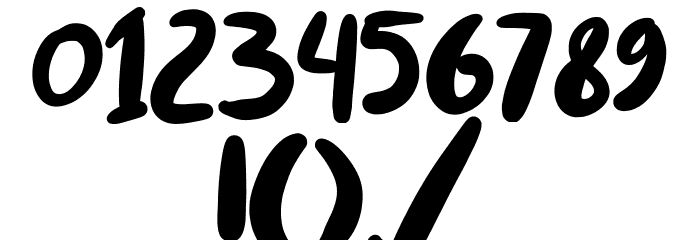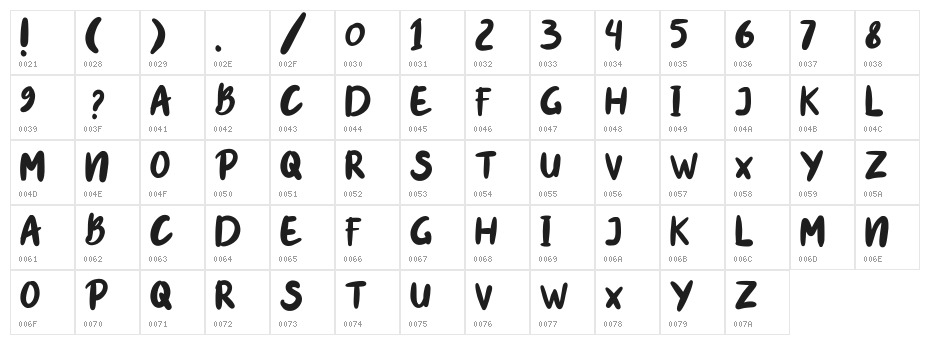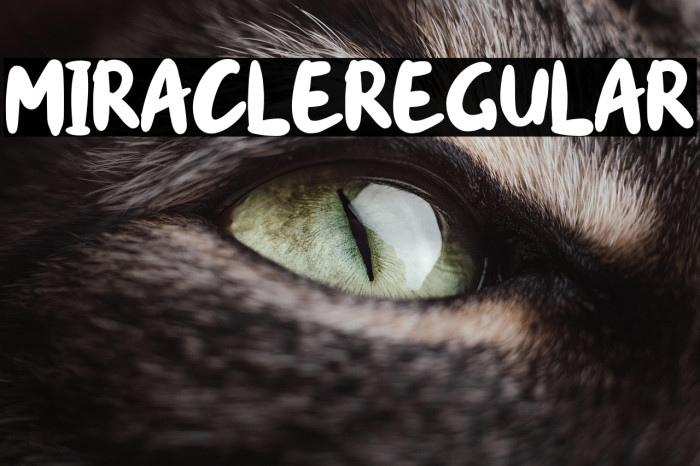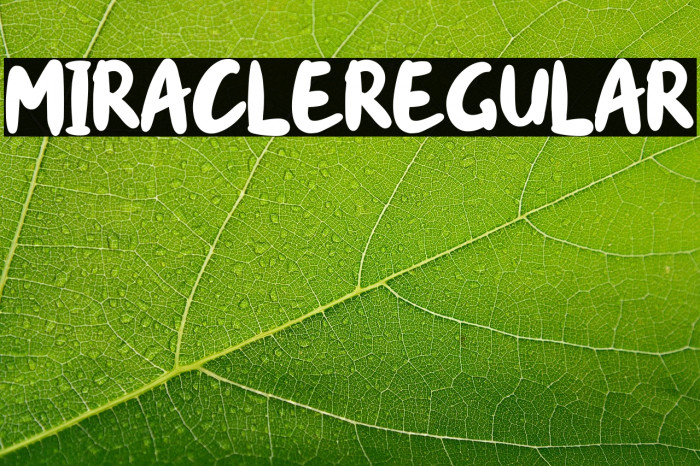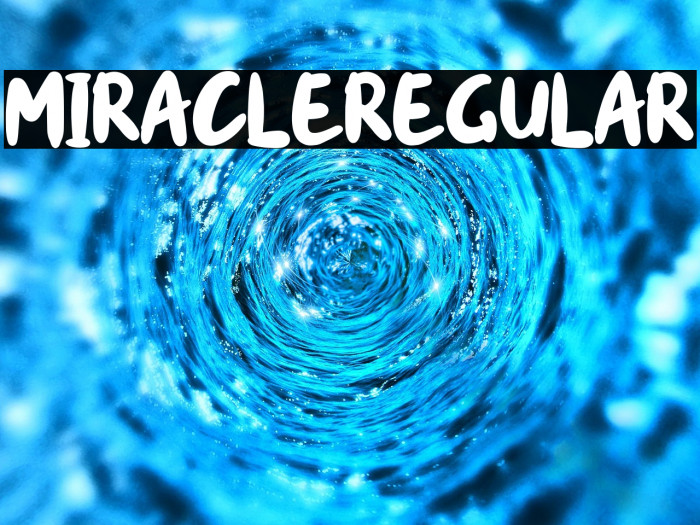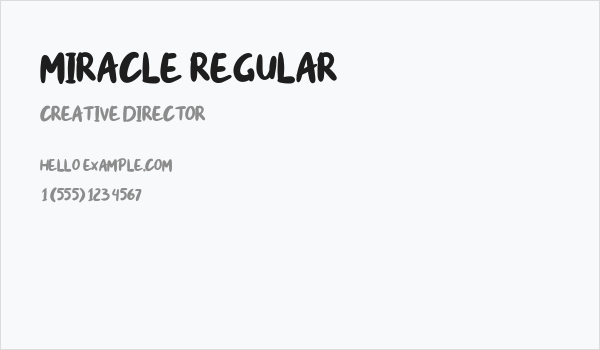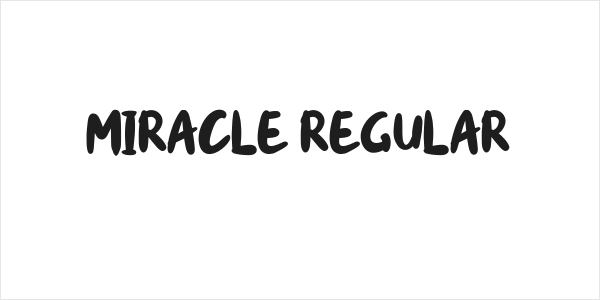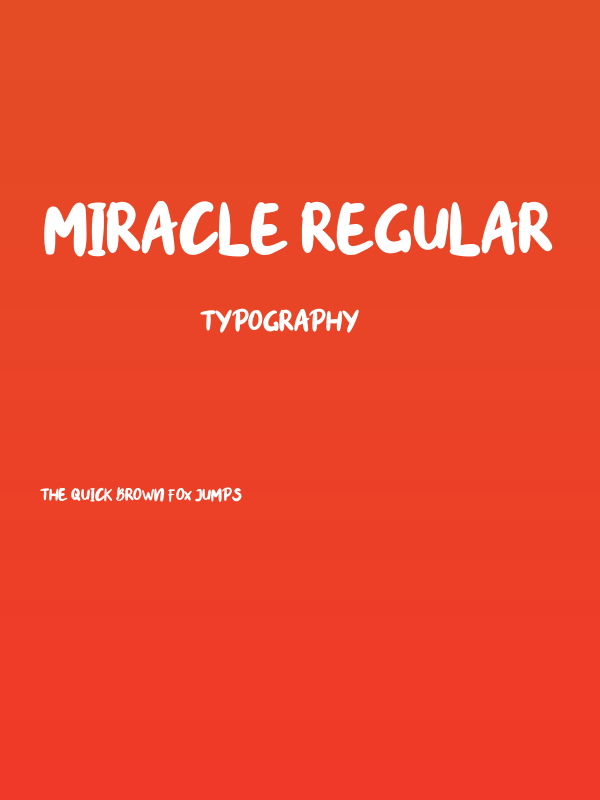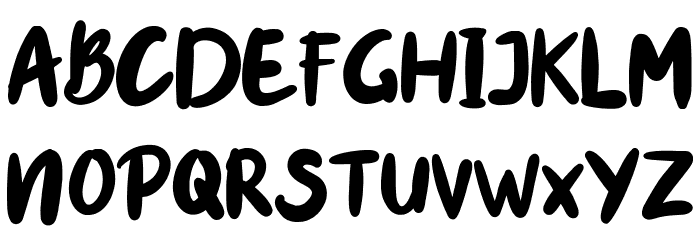
miracle-Regular Font
miracle-Regular Description
This font features a bold and playful handwritten style, characterized by its thick strokes and rounded edges. The letters are slightly slanted, giving a dynamic and energetic feel. The uppercase and lowercase letters maintain a consistent style, with a smooth flow that mimics natural handwriting. The numerals are equally bold and rounded, ensuring readability while maintaining the font's playful aesthetic. Special characters are designed to match the overall style, making it versatile for various creative projects.